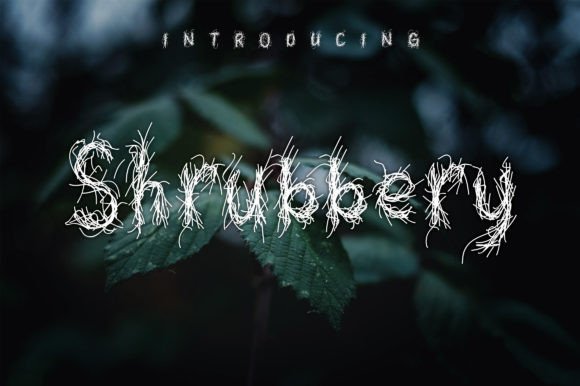
The Unique Charm and Practical Uses of the Shrubbery Font
Fonts are more than just tools for readability—they’re a form of artistic expression, shaping the visual identity of everything from branding materials to personal projects. Among the many fonts that have captured attention in recent years, Shrubbery stands out with its whimsical yet structured character design. As a display font, it’s not meant for long paragraphs but rather for headlines, logos, and creative elements where style is key. This article explores the features, benefits, and use cases of the Shrubbery font, offering insights into how it can enhance your designs while maintaining professionalism.
What Makes Shrubbery Different?
Display fonts like Shrubbery are designed to command attention and convey personality. What sets this particular typeface apart is its unique blend of playful and elegant aesthetics. The letters appear as if they’ve sprouted from organic forms, evoking the image of greenery or natural growth. Each glyph feels alive, almost like it could sway in the breeze, making it ideal for themes centered around nature, sustainability, or creativity.
This font is particularly effective in digital environments where bold typography helps content stand out. Its stylized characters add an element of surprise and delight, especially when used in marketing campaigns, editorial layouts, or social media posts. Unlike more traditional serif or sans-serif fonts, Shrubbery brings a sense of movement and vitality to static text.
Design Characteristics at a Glance
Where Can You Use the Shrubbery Font?
While Shrubbery may not be suitable for body text due to its decorative nature, it shines in specific contexts. Let’s explore some of the most impactful applications:
Branding and Logos
Businesses looking to establish a memorable brand often turn to custom or unique fonts. Shrubbery offers a fresh approach for industries like gardening, wellness, or eco-friendly products. For example, a boutique selling handmade soaps might use Shrubbery in their logo to evoke a sense of natural purity and artisanal quality.
Event Invitations and Posters
Weddings, festivals, and art exhibitions frequently benefit from eye-catching typography. Shrubbery’s expressive style can bring warmth and individuality to event visuals. When paired with botanical illustrations or earthy color palettes, it enhances the overall theme without overwhelming the message.
Social Media Graphics
In the fast-paced world of online content, standing out is essential. Social media creators who focus on lifestyle, travel, or food photography can leverage Shrubbery to craft visually engaging captions or titles. It adds a layer of sophistication and charm, helping brands resonate more deeply with their audiences.
Editorial Design and Book Covers
Book covers and magazine titles often rely on striking fonts to draw readers in. Shrubbery works well for niche publications, especially those related to nature, spirituality, or creative arts. Its distinctiveness ensures that the title remains unforgettable, even among competitors.
Why Choose Shrubbery Over Other Display Fonts?
There are countless display fonts available today, but few combine the balance of uniqueness and legibility that Shrubbery achieves. Here are some reasons why professionals and hobbyists alike choose this font:
1. Memorable Aesthetic: The font’s organic look makes it easy to remember, which is crucial for branding and marketing purposes.
2. Versatility in Style: Though whimsical, Shrubbery maintains enough structure to work in both modern and vintage-inspired designs.
3. Adaptability Across Mediums: Whether printed on a poster or displayed digitally, Shrubbery retains clarity and impact.
4. Emotional Resonance: The font conveys a sense of playfulness and creativity, making it perfect for projects that aim to inspire or relax the viewer.
5. Easy to Customize: With access to stylistic alternates and weights, users can tailor the font to suit various moods and messages.
Real-World Examples of Shrubbery in Action
Consider a coffee shop launching a new line of herbal infusions. They might use Shrubbery in their packaging and signage to emphasize the natural ingredients and handcrafted process. Another example could be a blog about home gardening, using the font in headings to create a welcoming and relatable atmosphere.
In educational settings, teachers designing project presentations or classroom posters about environmental science can utilize Shrubbery to make learning materials more engaging. Similarly, researchers creating infographics on ecological studies may find the font enhances the thematic tone of their work.